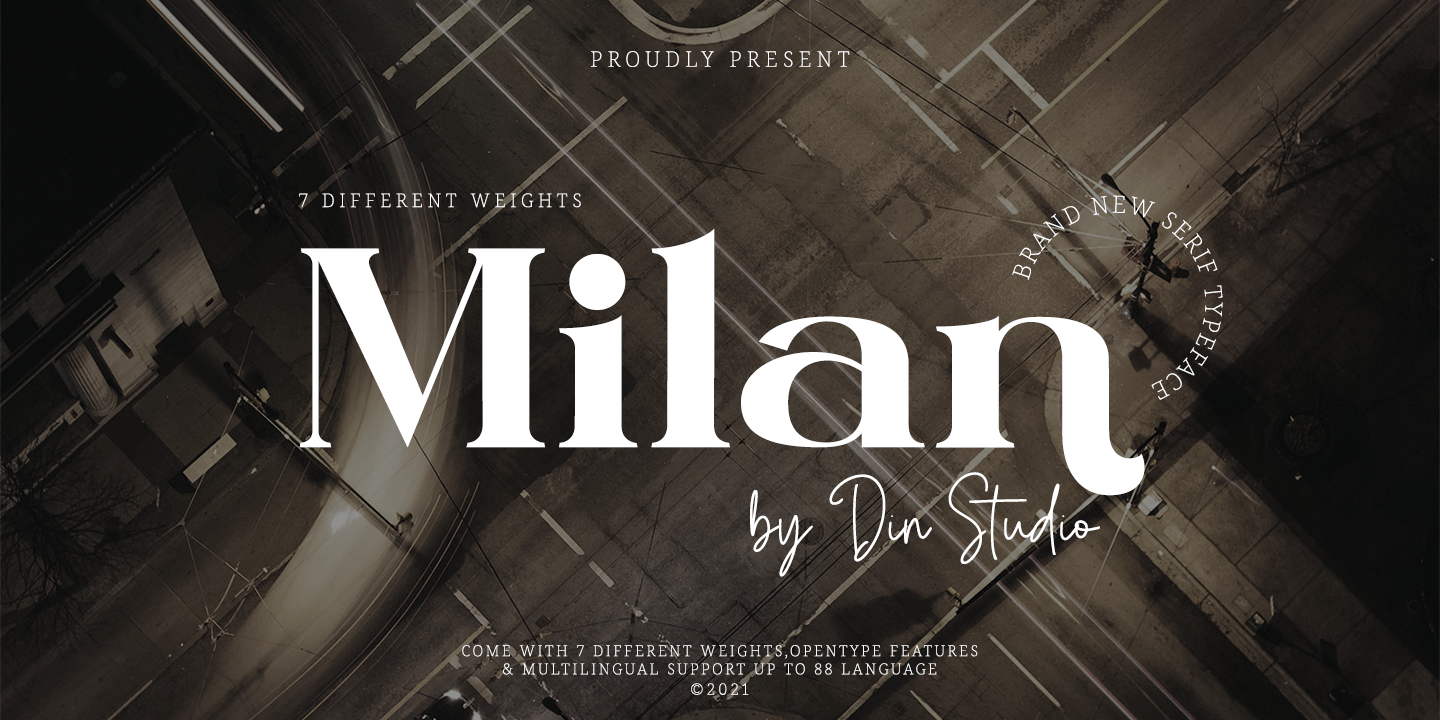
Milan Font is perfect for high-end fashion branding, luxury Italian restaurant menus, sophisticated art gallery catalogs, premium design studio materials, upscale boutique signage, elegant architecture firm presentations, refined cultural event invitations, prestigious fashion magazine layouts, exclusive Italian lifestyle marketing, and distinguished metropolitan brand communications.
What makes Milan Font so exciting is its extraordinary ability to capture the sophisticated essence of Italian design mastery and cosmopolitan elegance through meticulously crafted letterforms that seem sculpted by Renaissance artisans and refined by centuries of cultural sophistication that defines Italy's fashion capital. This font embodies the spirit of Milano's legendary style and artistic excellence, featuring gracefully proportioned characters that appear to flow with the natural rhythm of Italian creativity and the effortless elegance that makes Milan the global epicenter of fashion and design innovation. The refined letter shapes create an atmosphere of cultured sophistication and artistic authority, making every word feel like it belongs in the world's most prestigious fashion houses and culturally significant design studios.
The Milan Font family includes Thin, Light, Regular, Medium, Bold, and Black weights, along with corresponding italic variations and elegant display styles. Each style maintains the font's distinctive Italian character while offering versatility for different luxury applications, from delicate fashion editorial text to commanding headlines that establish immediate cultural credibility and sophisticated brand recognition.
This distinguished typeface brings authentic Italian luxury aesthetics to contemporary design projects. The Milan Font Free Download provides designers with an exceptional tool to create memorable brand identities that communicate sophistication, cultural refinement, and European elegance. Whether you're developing luxury fashion branding, designing high-end hospitality materials, or creating sophisticated cultural communications, this font delivers unmatched Italian sophistication and metropolitan appeal.
The exquisitely crafted letterforms in Milan Font feature classical proportions enhanced with contemporary Italian design sensibilities that ensure optimal performance across both traditional luxury print materials and modern digital platforms serving discerning international clientele. Each character has been refined to achieve perfect optical balance while expressing the effortless style and cultural confidence that define authentic Italian design excellence. The font's prestigious appearance makes it ideal for applications requiring established cultural authority and sophisticated European taste.
Luxury brand professionals appreciate how Milan Font effortlessly communicates Italian craftsmanship, cultural sophistication, and timeless elegance while appealing to global audiences who recognize and value the distinctive design philosophy that has made Milan synonymous with style, quality, and artistic innovation. The comprehensive glyph set includes elegant symbols, sophisticated ornaments, cultural elements, and extensive international language support, ensuring worldwide compatibility while preserving its distinctive Milanese identity. This makes it an invaluable resource for fashion houses, luxury brands, cultural institutions, and any organization seeking typography that embodies the enduring Italian principles of beauty, craftsmanship, and the kind of effortless sophistication that transforms everyday objects into works of art and elevates simple communications into expressions of cultural excellence that reflect Milan's position as the undisputed capital of global style and design innovation.